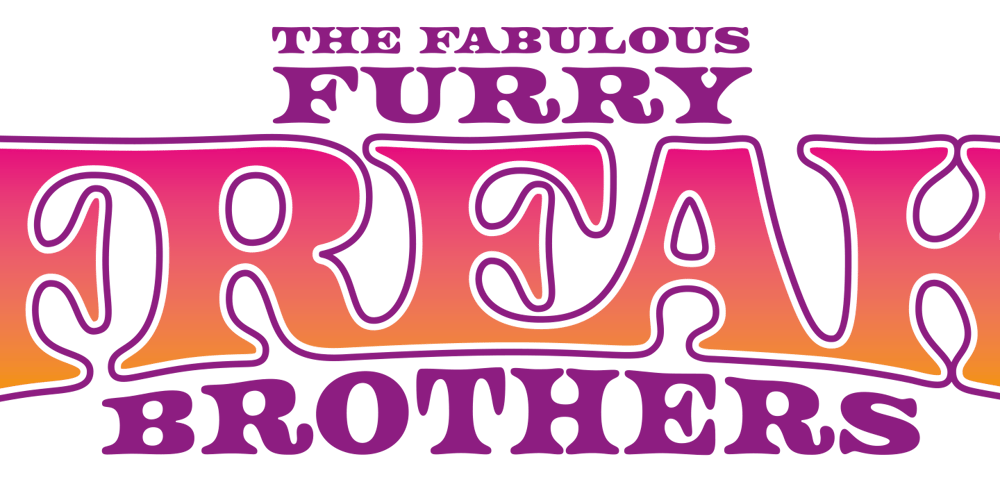
Freehouse Font Family was designed by Rian Hughes and published by Device. Freehouse contains 3 styles and family package options. Freehouse is a reinterpretation of the well-remembered Watney’s logo, a brewery and pub chain infamous for its poor quality beer and brutalist decor. In Design Research Unit’s corporate guidelines from 1966 the font is described as Clarendon Bold Expanded — however, this is not the case. Clarendon has square serifs, whereas the Watney’s font is rounder and friendlier. A fixture of the British high street landscape for decades, this digitisation adds a full international character set, numbers, punctuation and many other characters that did not exist in the original. A distressed version that evokes rough print on a wet beermat has also been developed.